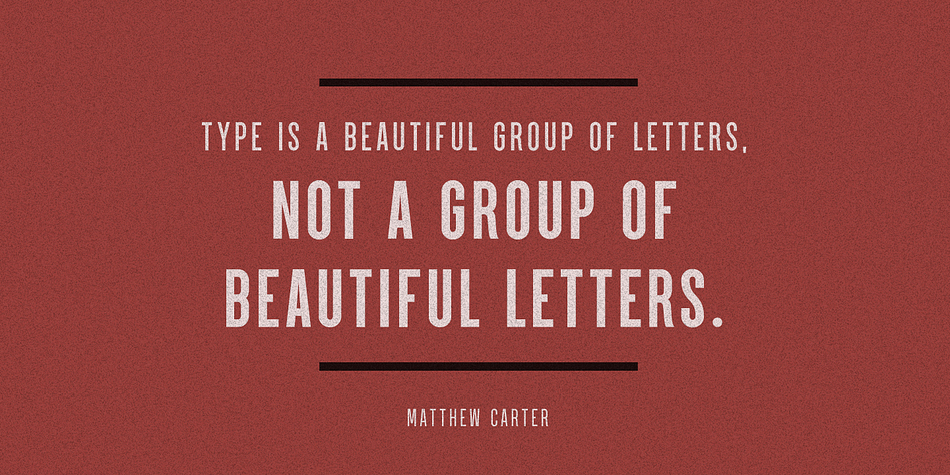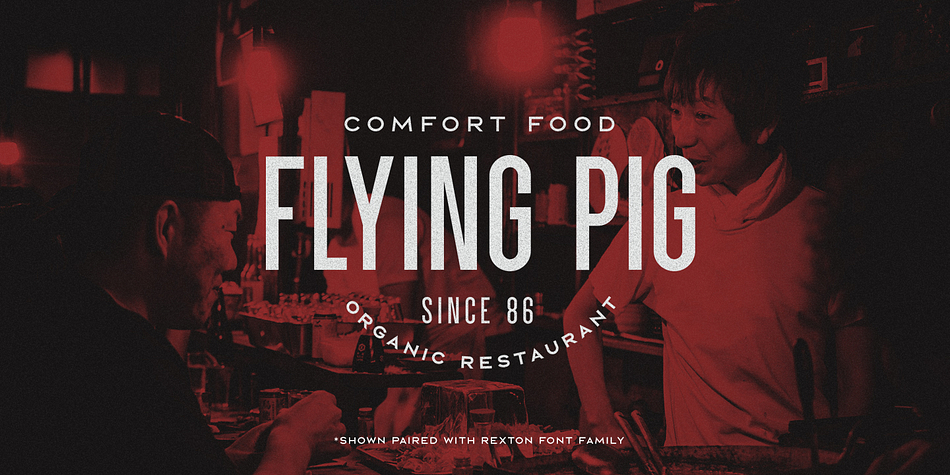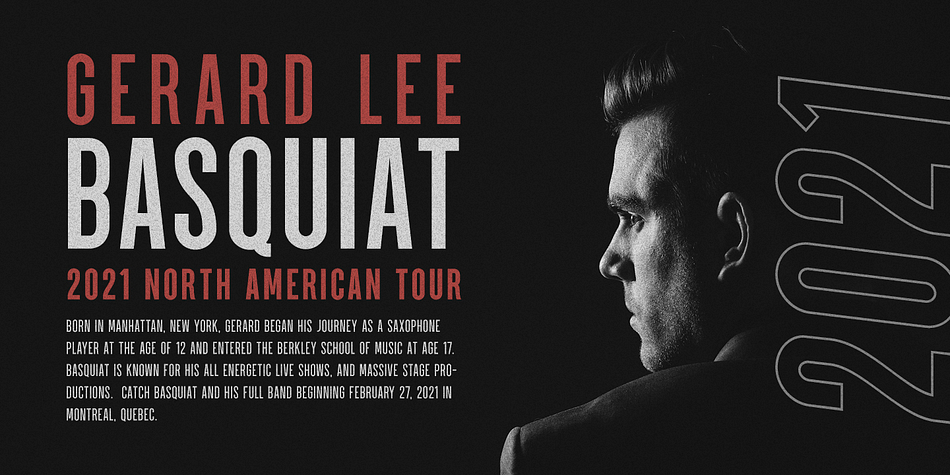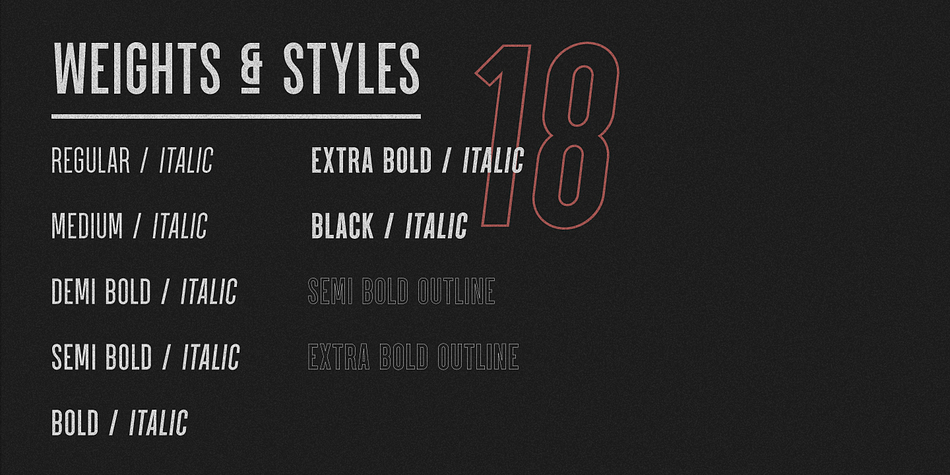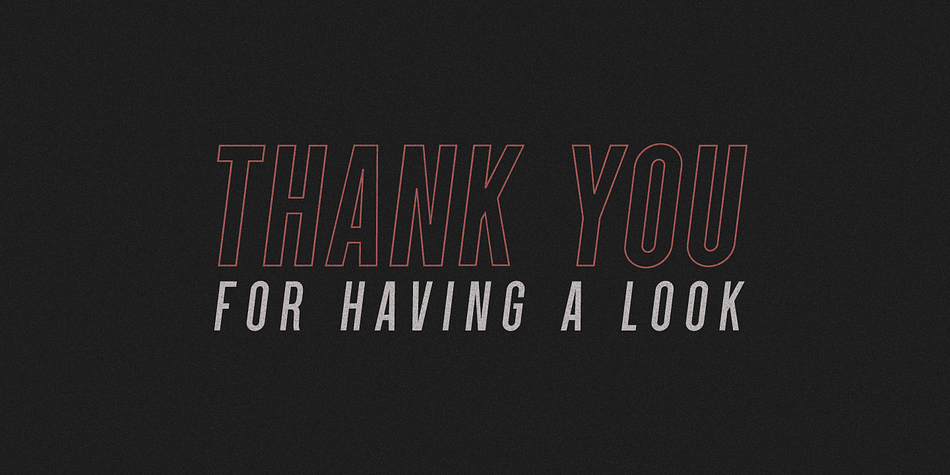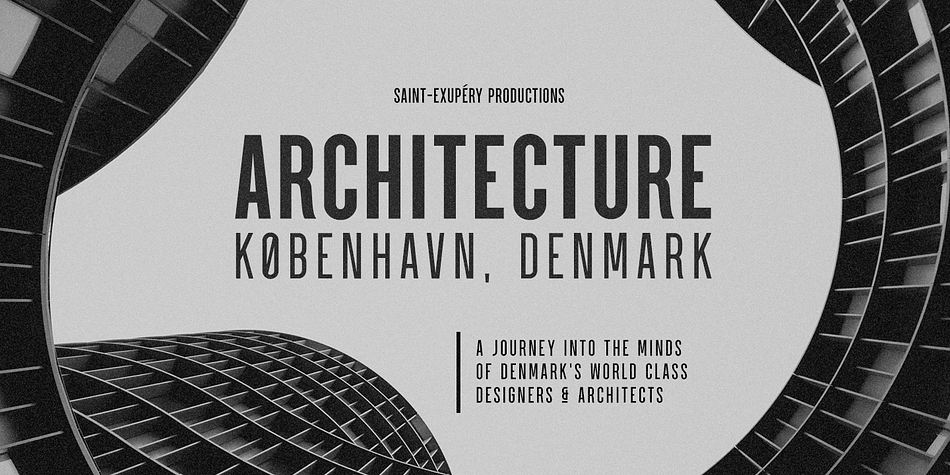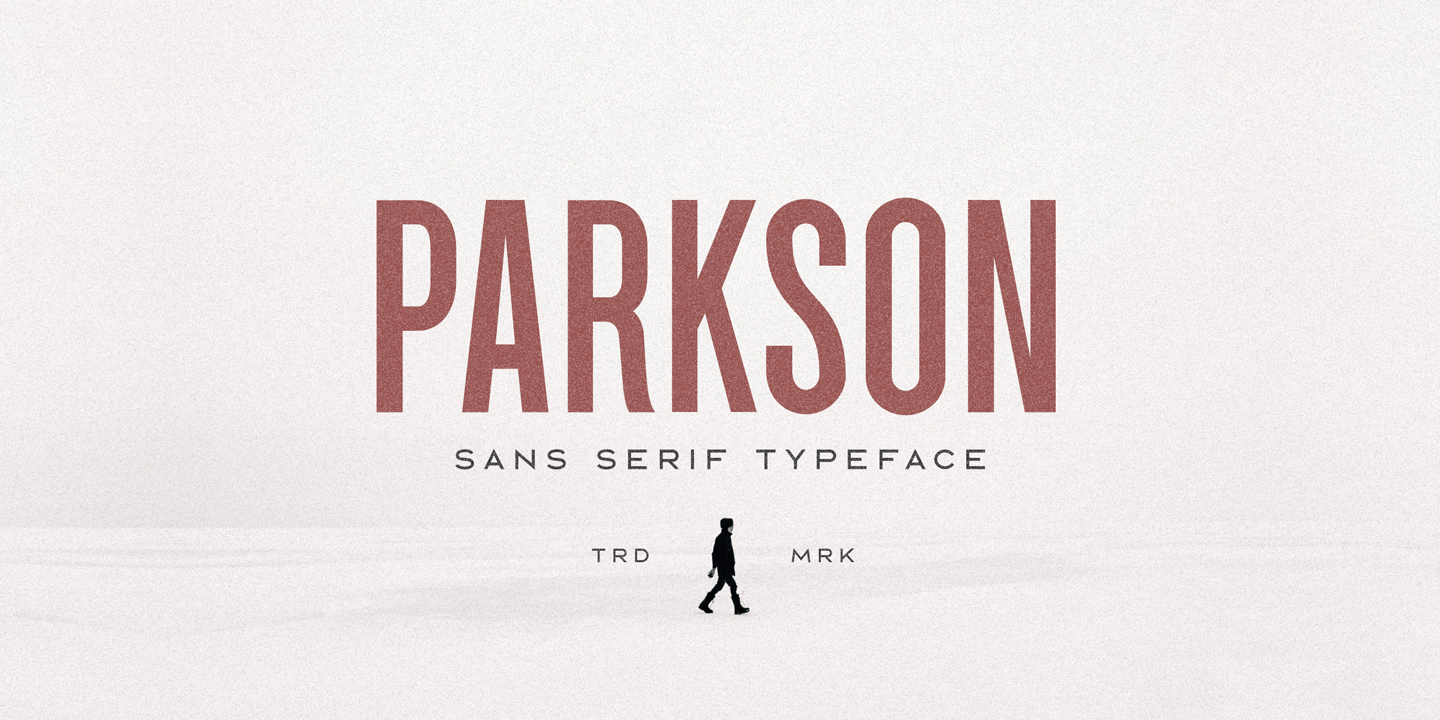
Designed by Greg Nicholls, Parkson is a display sans font family. This typeface has eighteen styles and was published by Rook Design Supply.
Inspired by the grotesque fonts of the 19th century, Parkson is a tall sans serif typeface of 7 weights along with italic and several outline versions. The contemporary typeface aims to be one of the world’s best condensed collection of fonts. Designed for optimum legibility, its clean, geometric look is perfect for logotypes, headers, titles and brochures.
With Parkson, you get eighteen fonts for a wide range of versatility. Each font is made up of 221 glyphs to cover a wide range of language support including: French, Spanish, English, Catalan, Galician, Basque, Portuguese, Italian, Albanian, Afrikaans, Dutch, German, Danish, Swedish, Norwegian, Finnish, Faroese, Icelandic, Irish and Scottish.
Foundry | Rook Design Supply |
Designer | Greg Nicholls |